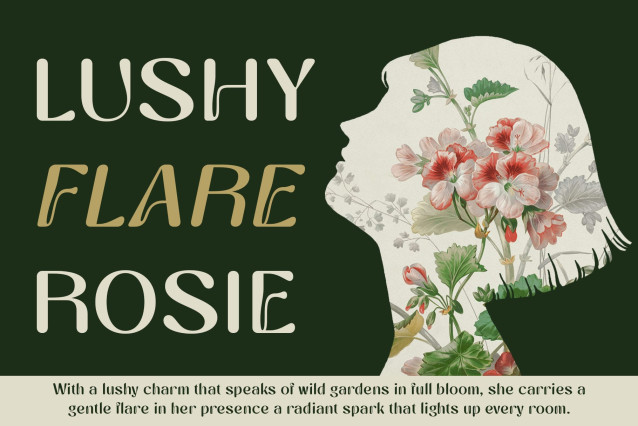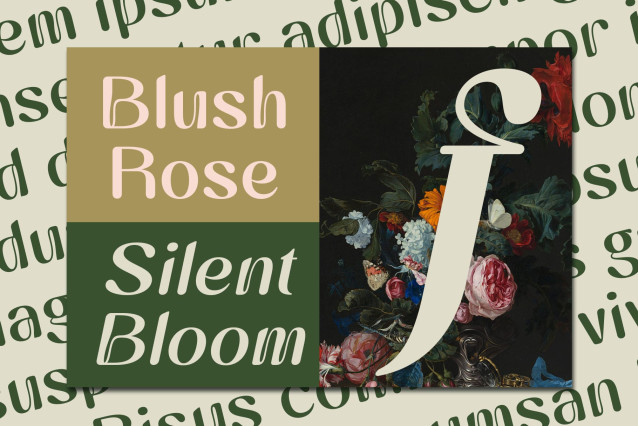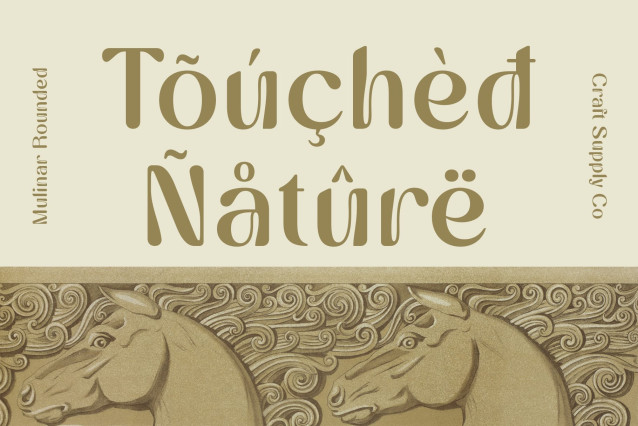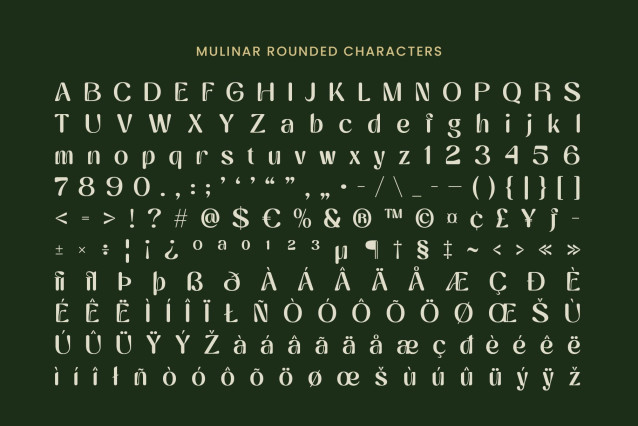
Mulinar Rounded Font
Mulinar Rounded Font is a modern display sans-serif font that merges flowing Art Nouveau elements with smooth, rounded forms. Its gentle curves and fluid lines create a harmonious, graceful appearance that brings elegance and softness to any design.